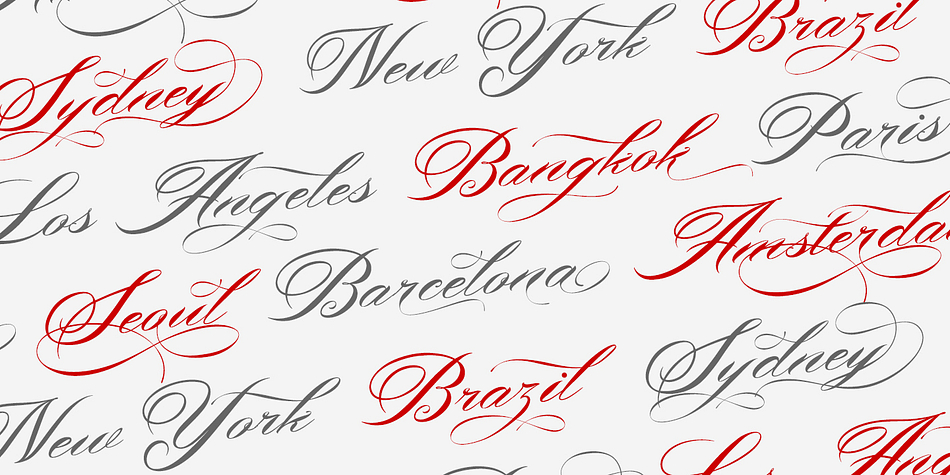
Bonthing Calligraphy
Designed by Suandana Ipandemade, Bonthing Calligraphy is a modern calligraphy and script font published by madeDeduk.
Bonthing is a luxury calligraphy with beautiful ligatures and a lot special alternative glyphs so you can create a lots with layouts and compositions.
Bonthing perfect for poster design, book covers, merchandise, fashion campaigns, newsletters, branding, advertising, magazines, greeting cards, album covers, and quote designs and more.
Feature
- UPPERCASE
- lowercase
- Number & Symbol
- International Glyps
- Alternative
- Ligature